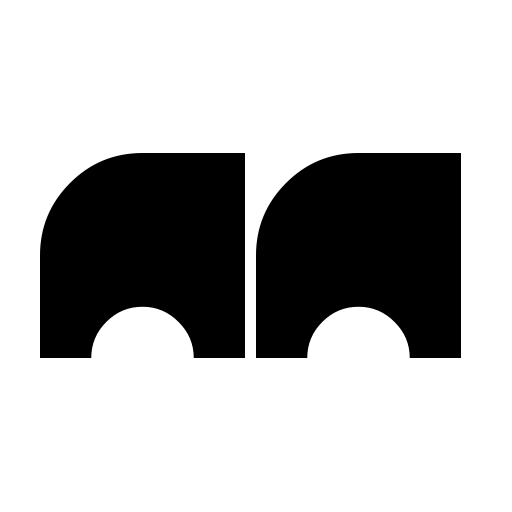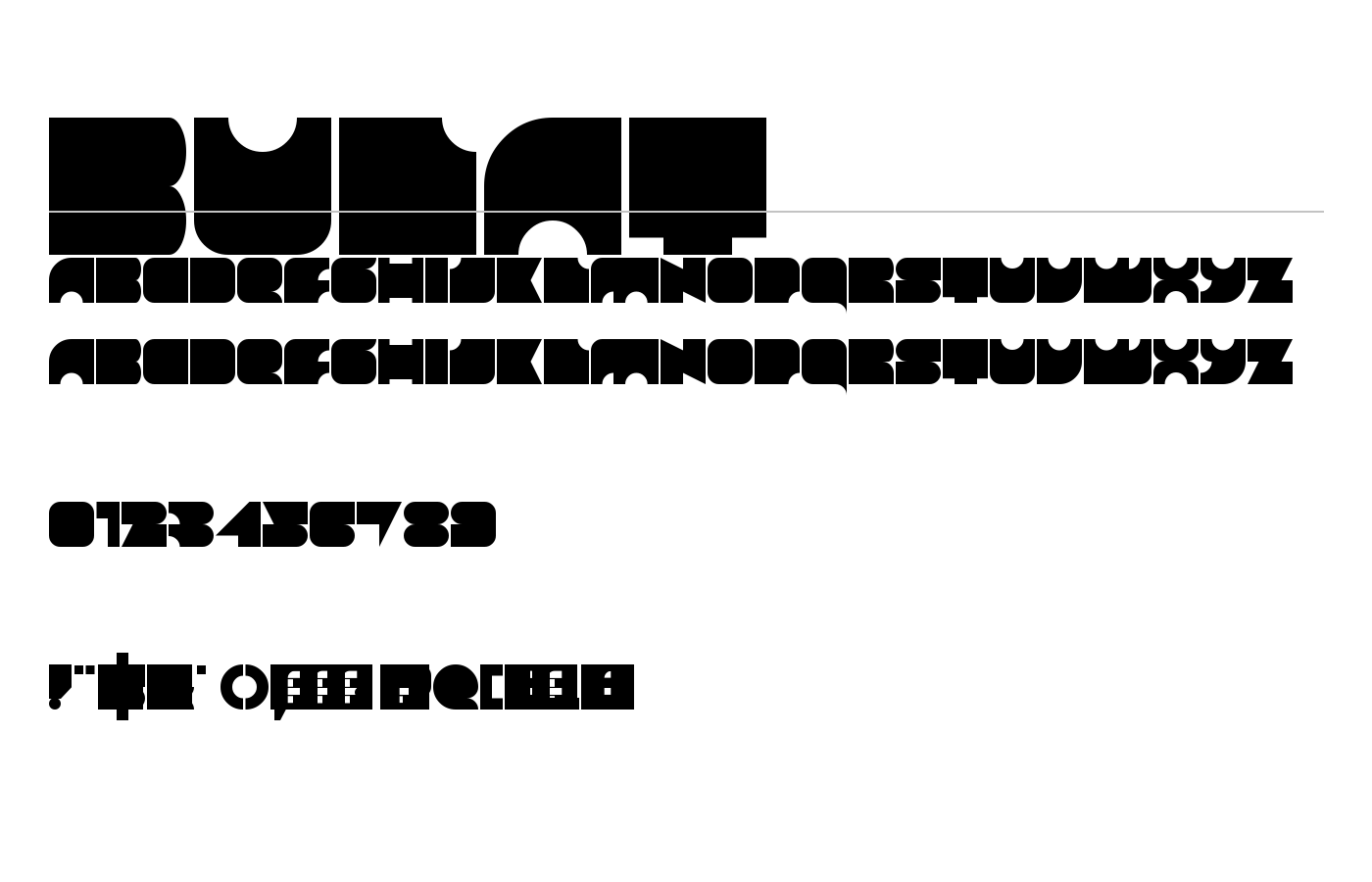
Bulat is a bold, geometric sans serif font characterized by its heavy weight and tightly spaced letterforms that create a strong, impactful presence. Its unique design features rounded corners and playful cutouts within letters, giving it a modern, avant-garde vibe perfect for striking headlines, logos, and creative branding that demands attention and a contemporary edge. This font works best in large sizes where its distinctive shapes can shine, adding personality and a stylish flair to fashion, music, and trend-forward projects.
Bulat Font
About Bulat Font
| Font family | Bulat Font |
| Designer | cablecomputer |